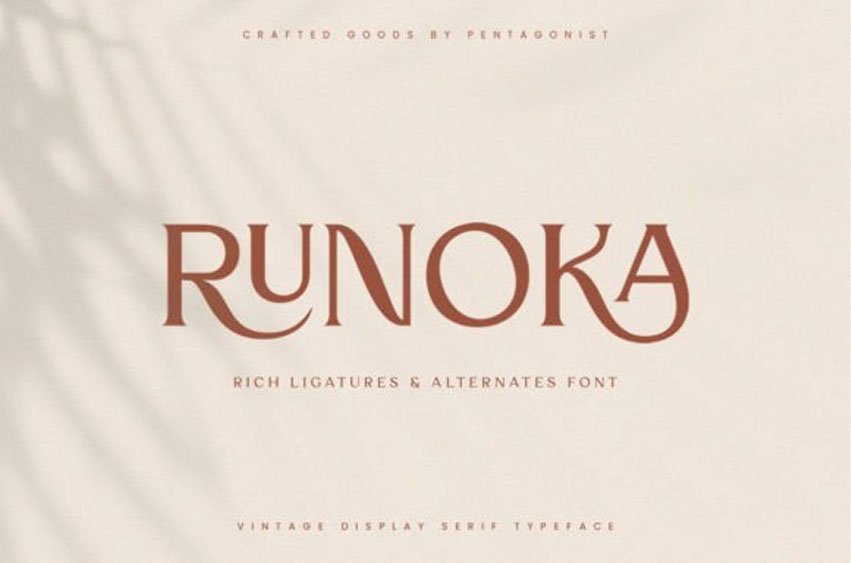
Runoka Font
Runoka Font is a stylish, vintage-style serif display font.
Specially designed for luxury, elegant, feminine projects, this font is perfectly suitable for creating modern, chic designs.